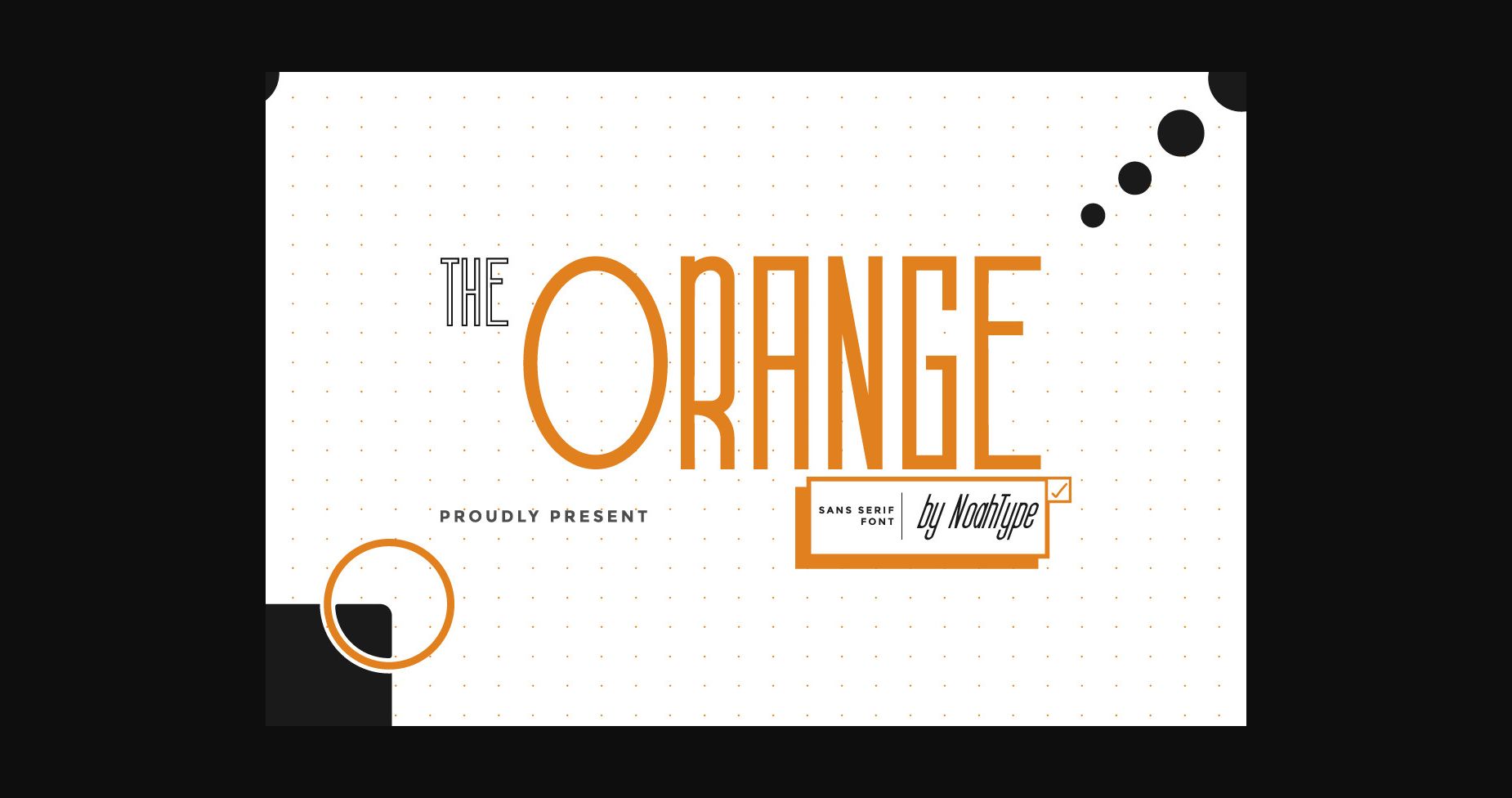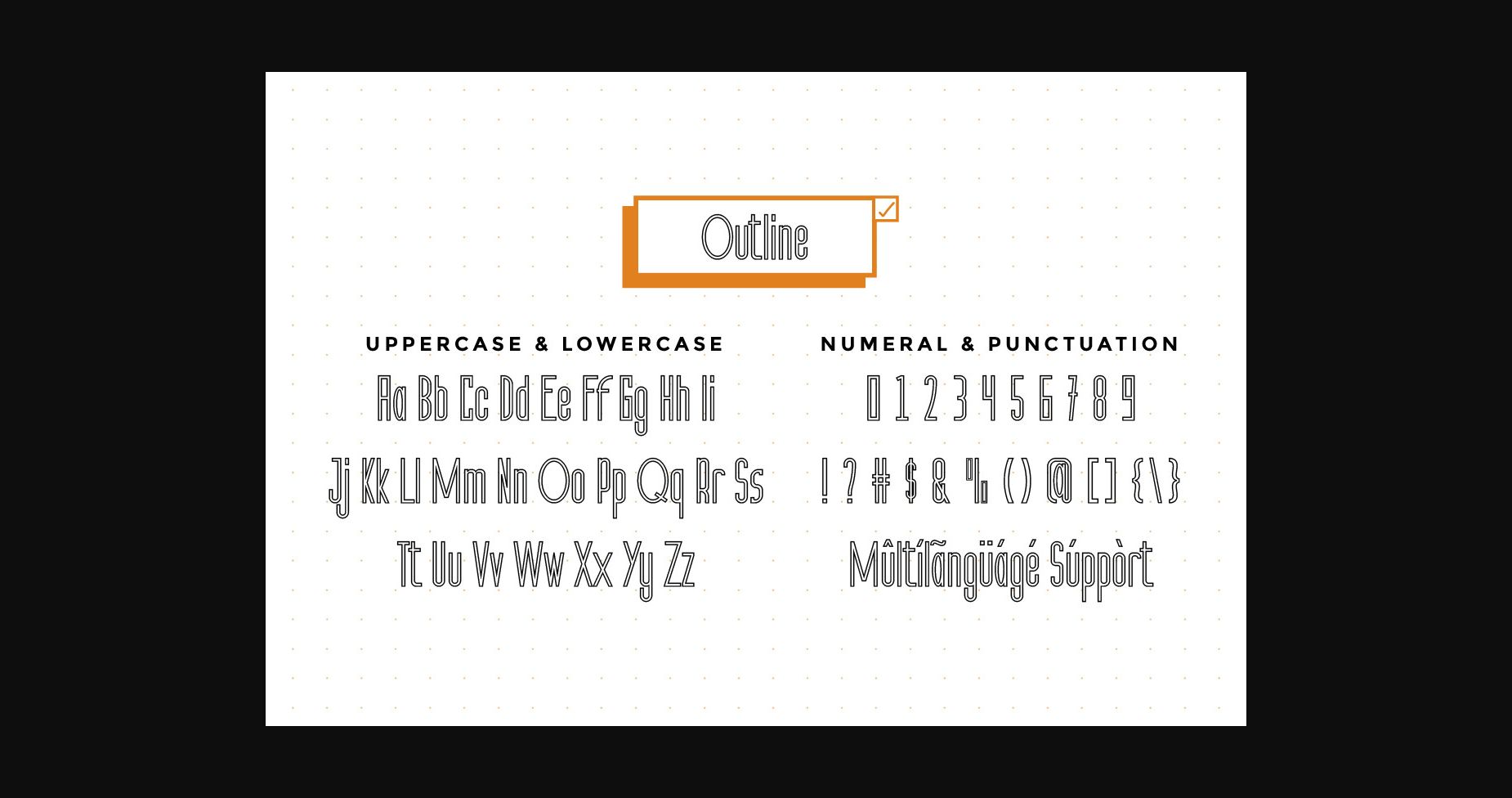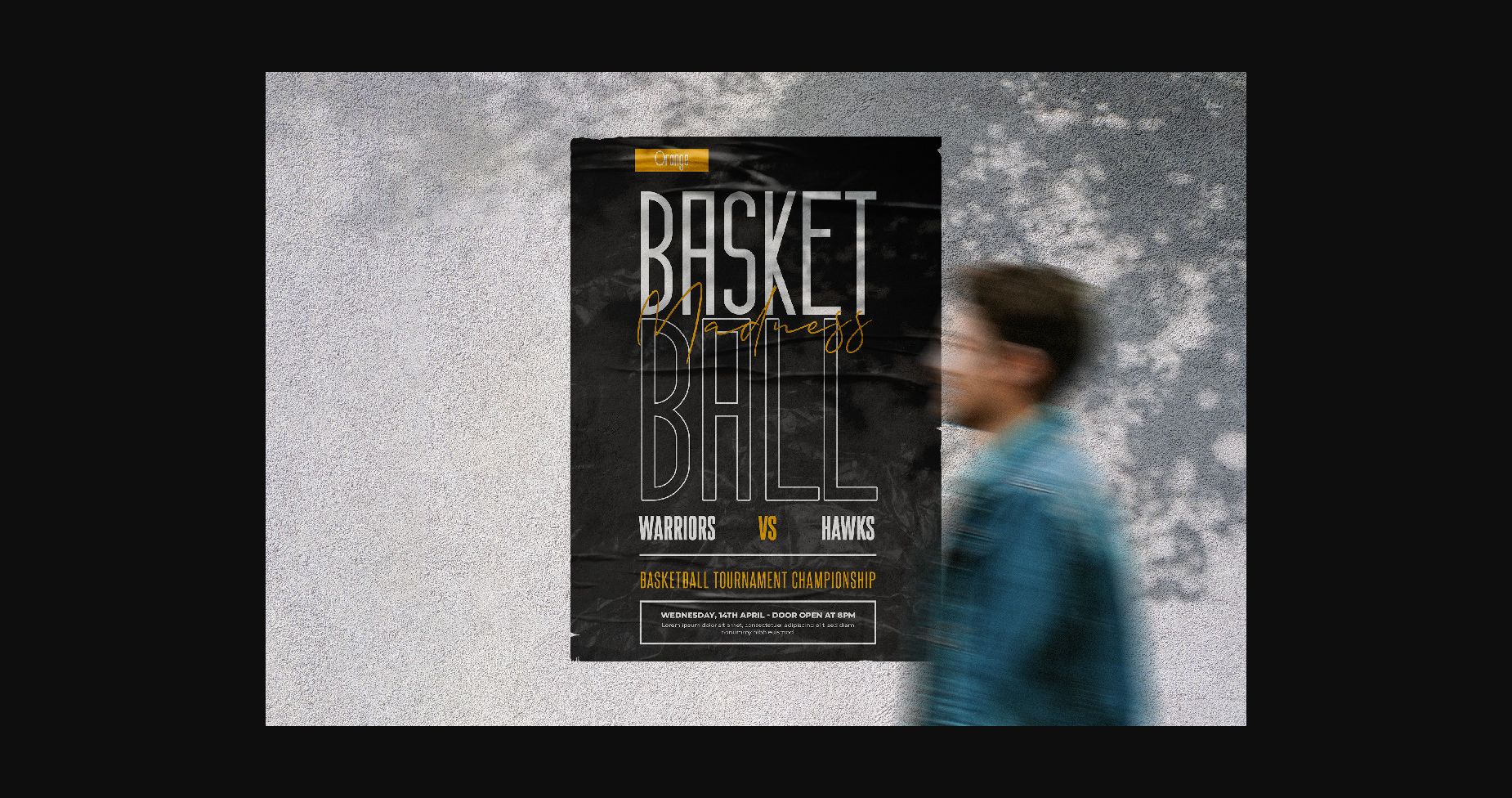
About The Orange Font
The Orange is a sans serif font with a modern, creative style. It is inspired by the cryptocurrency and the tech hype industry and is made for any modern projects, including product packaging, branding, headlines, billboards, etc.